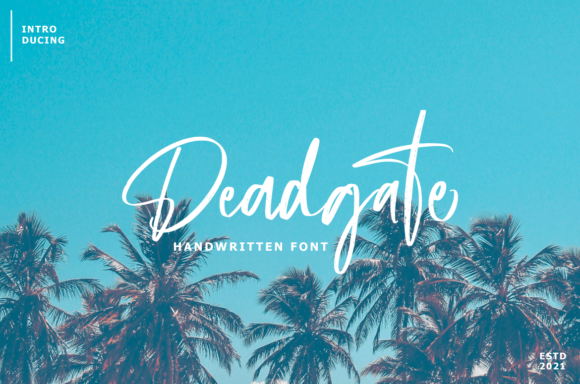
Introduction to Deadgate Font
Deadgate is a lovely and timeless handwritten font.
Key Features of Deadgate Font
Why Choose Deadgate Font?
Deadgate Font offers exceptional quality and versatility, making it a valuable addition to your design toolkit. Whether you’re creating for personal projects or commercial use, Deadgate Font delivers professional results.